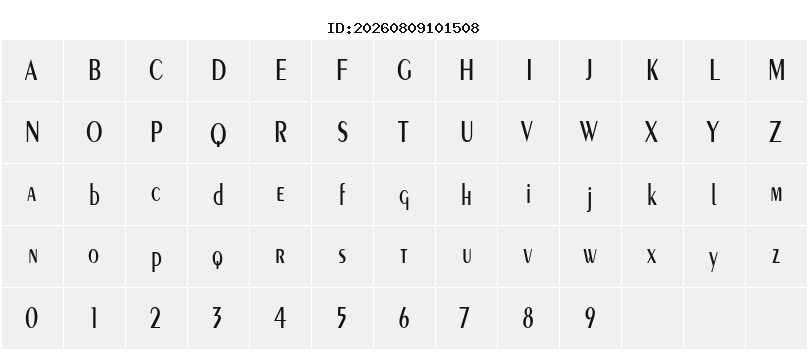
PenwinCondensed Preview
• Font Name: PenwinCondensed
• Font ID: SWFTE:PenwinCondensed Regular
• Full Font Name: PenwinCondensed
About PenwinCondensed.ttf
PenwinCondensed.ttf is a modern, elegant sans-serif font designed for ultimate readability and visual harmony. Perfect for branding, headlines, web design, and print materials.